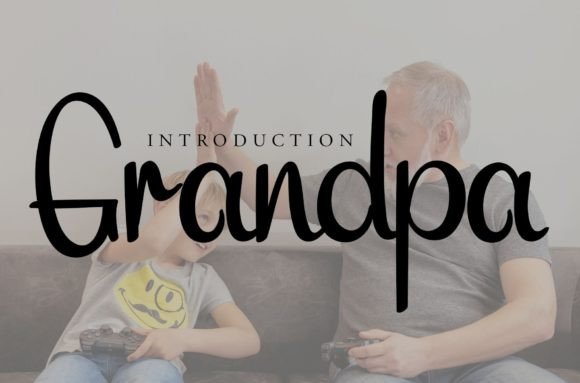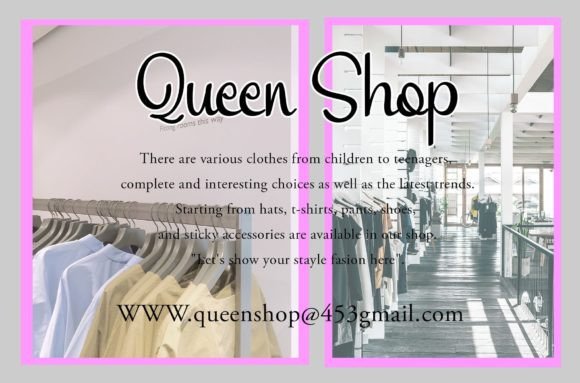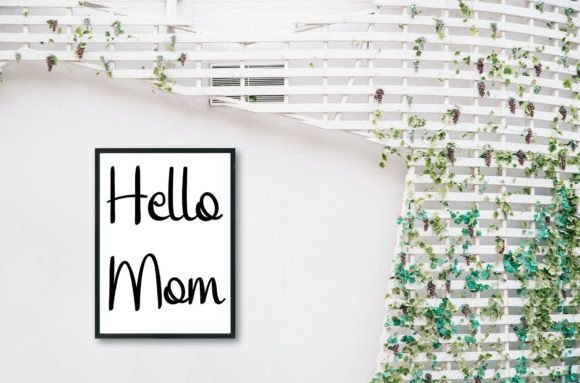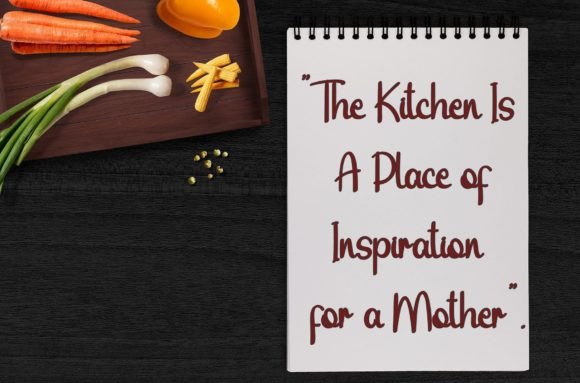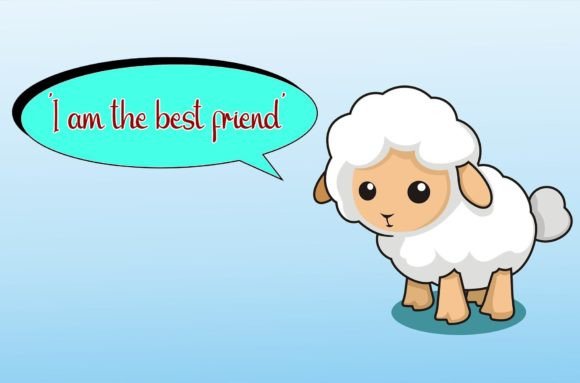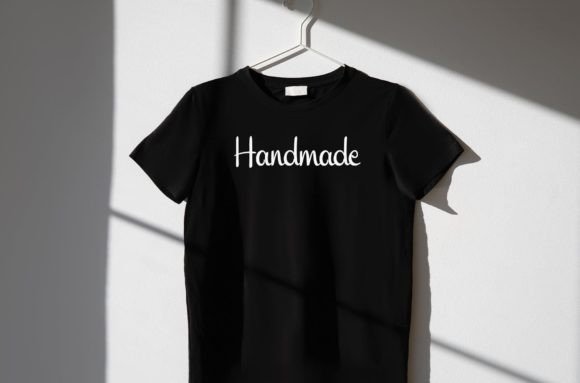
Grandpa Font
About Grandpa Font
Grandpa is a delightful and friendly handwritten font that injects a sense of fun and warmth into any design. Its playful and approachable style makes it a perfect choice for a wide range of creative projects. By using Grandpa, you can transform any design idea into a true standout, capturing the hearts of your audience with its unique charm.
The font’s friendly demeanor adds a touch of personality to your text, making it inviting and engaging. Whether you’re working on greeting cards, social media posts, or playful branding materials, Grandpa infuses your designs with a sense of joy and creativity.
Grandpa’s handwritten charm inspires creativity and allows you to explore various design possibilities. Its casual and relaxed vibe creates a welcoming atmosphere, making your audience feel connected and at ease. With Grandpa, you can create lovely designs that leave a lasting impression, conveying your message with a touch of friendliness and sincerity.
Embrace the unique charm of Grandpa and let it inspire your creative endeavors. Whether you’re designing posters, invitations, or any other project that needs a fun and friendly touch, this font is sure to bring your ideas to life. Let Grandpa add a sprinkle of joy to your designs and watch as they come alive with creativity and warmth.